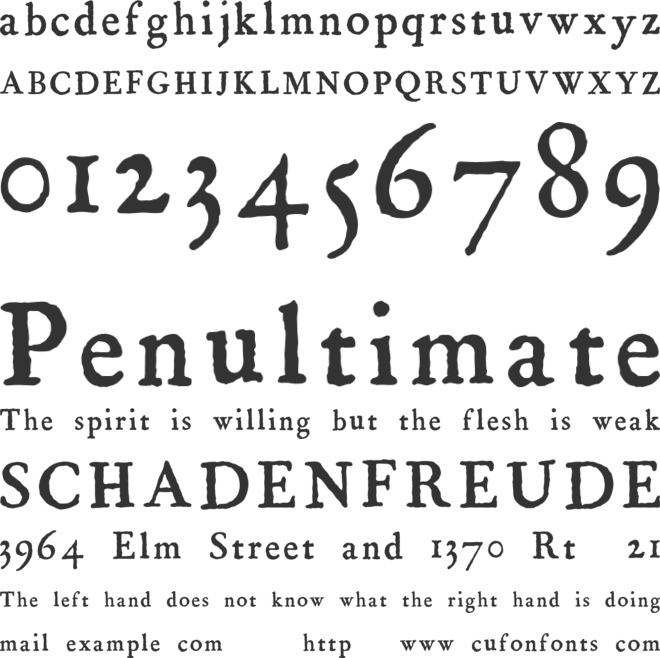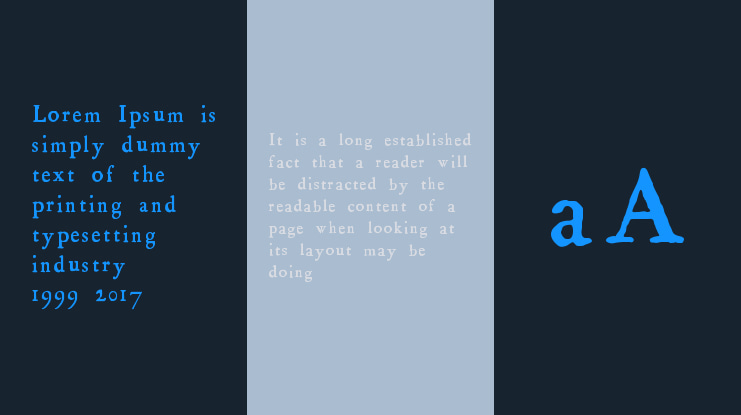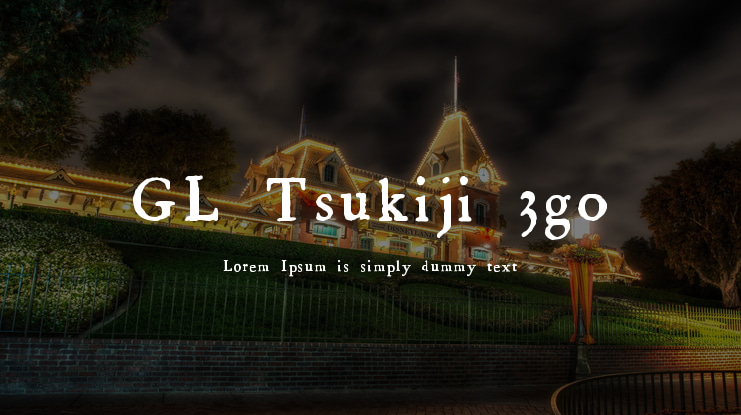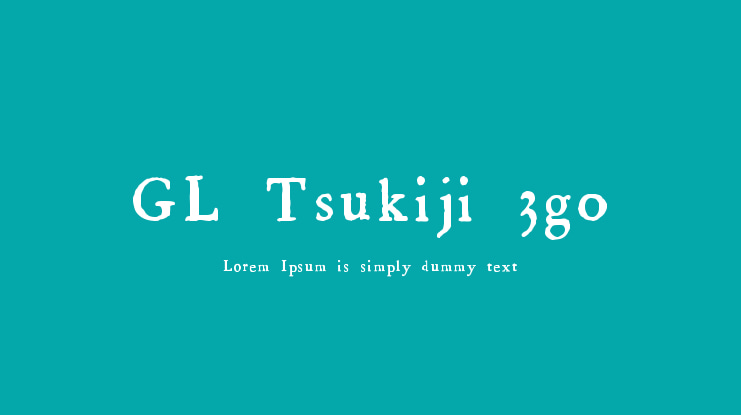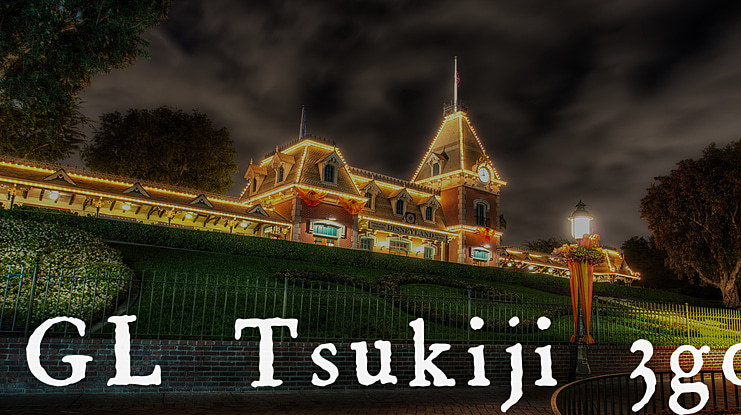
GL-Tsukiji-3go Font
From typeface of the Tokyo Tsukiji Kappan, type foundry in the Meiji period (1868-1912). It supports hiragana and katakana. No Chinese letters. This font also supports basic Latin characters from "Manuel Typographique" Pierre-Simon Fournier, but they are only for Kana character input support.